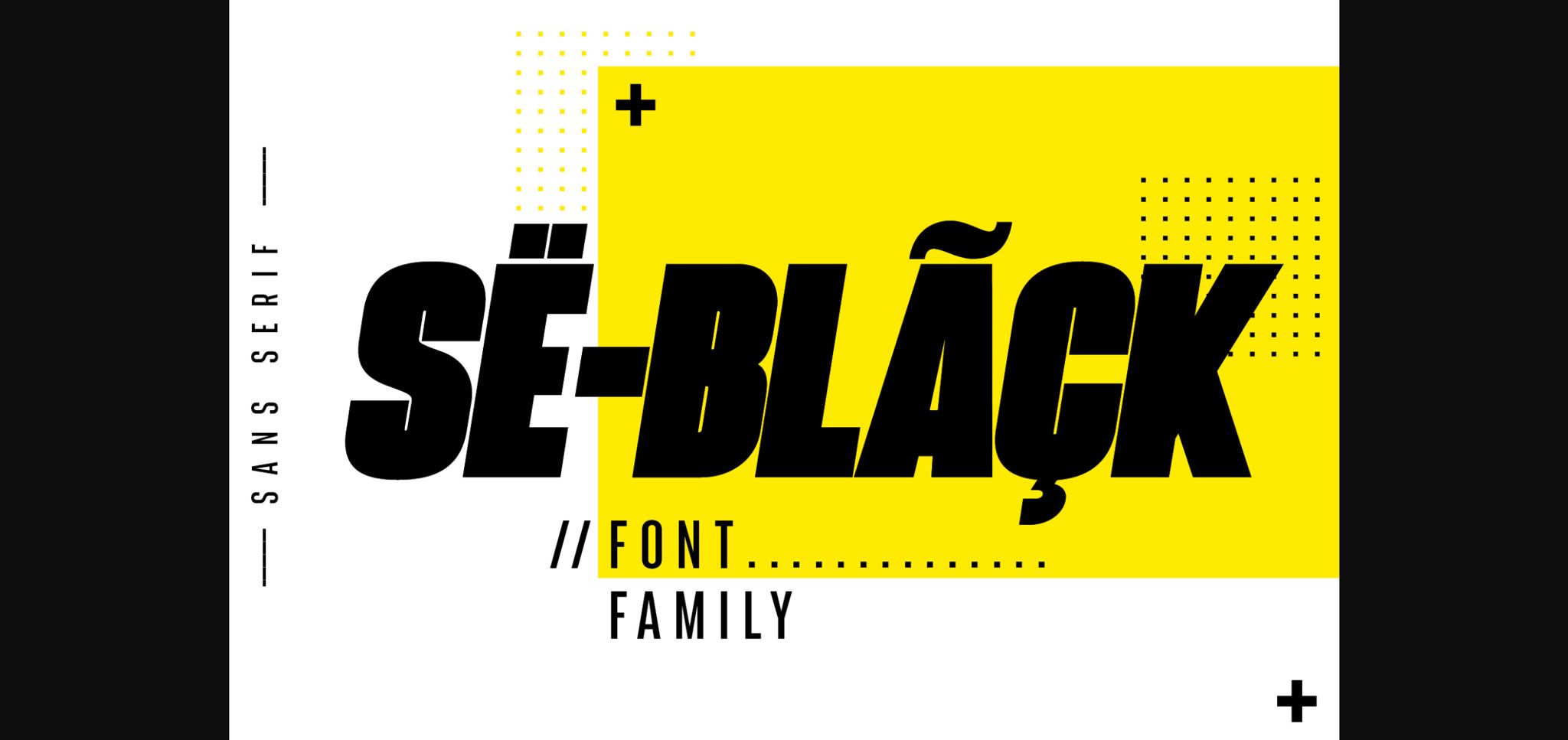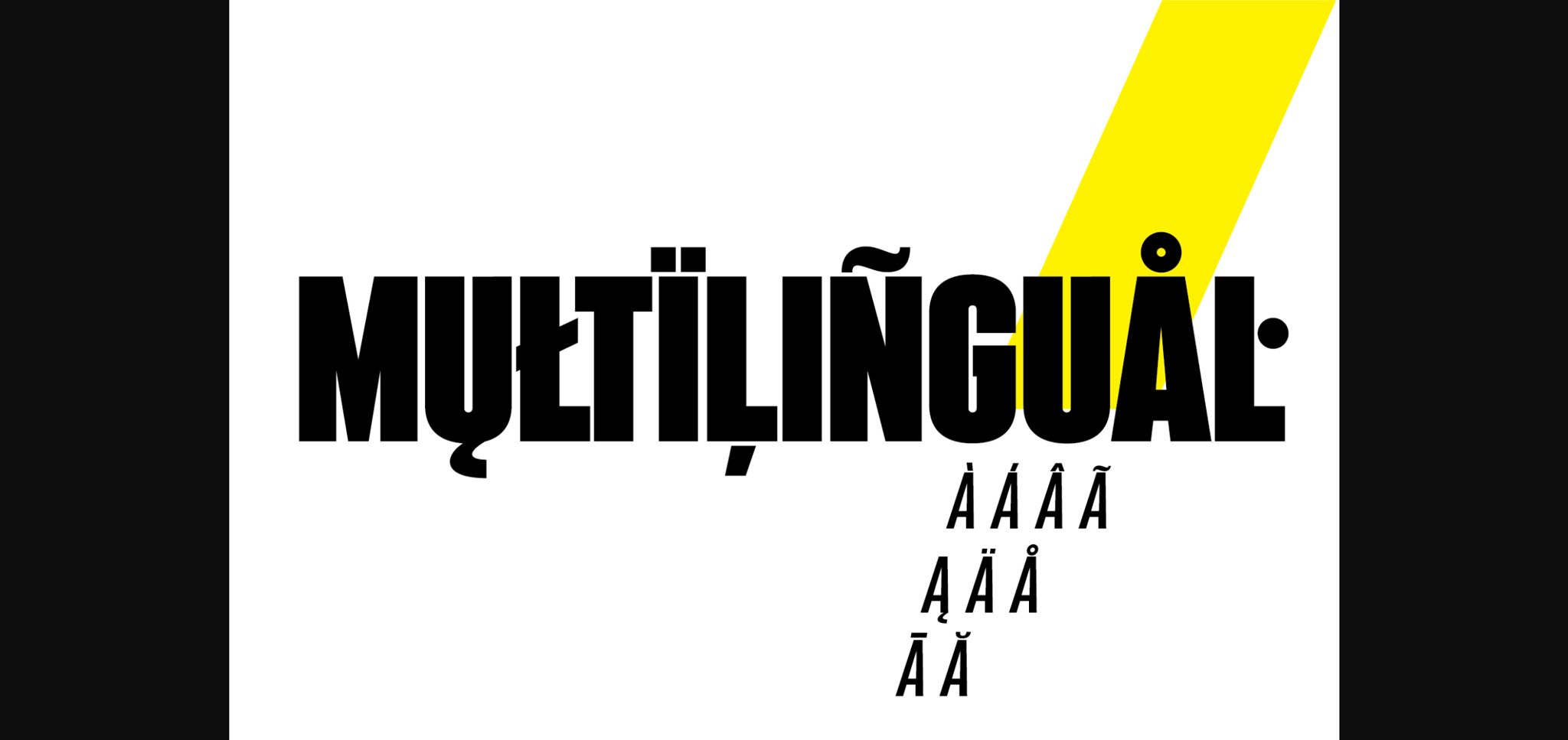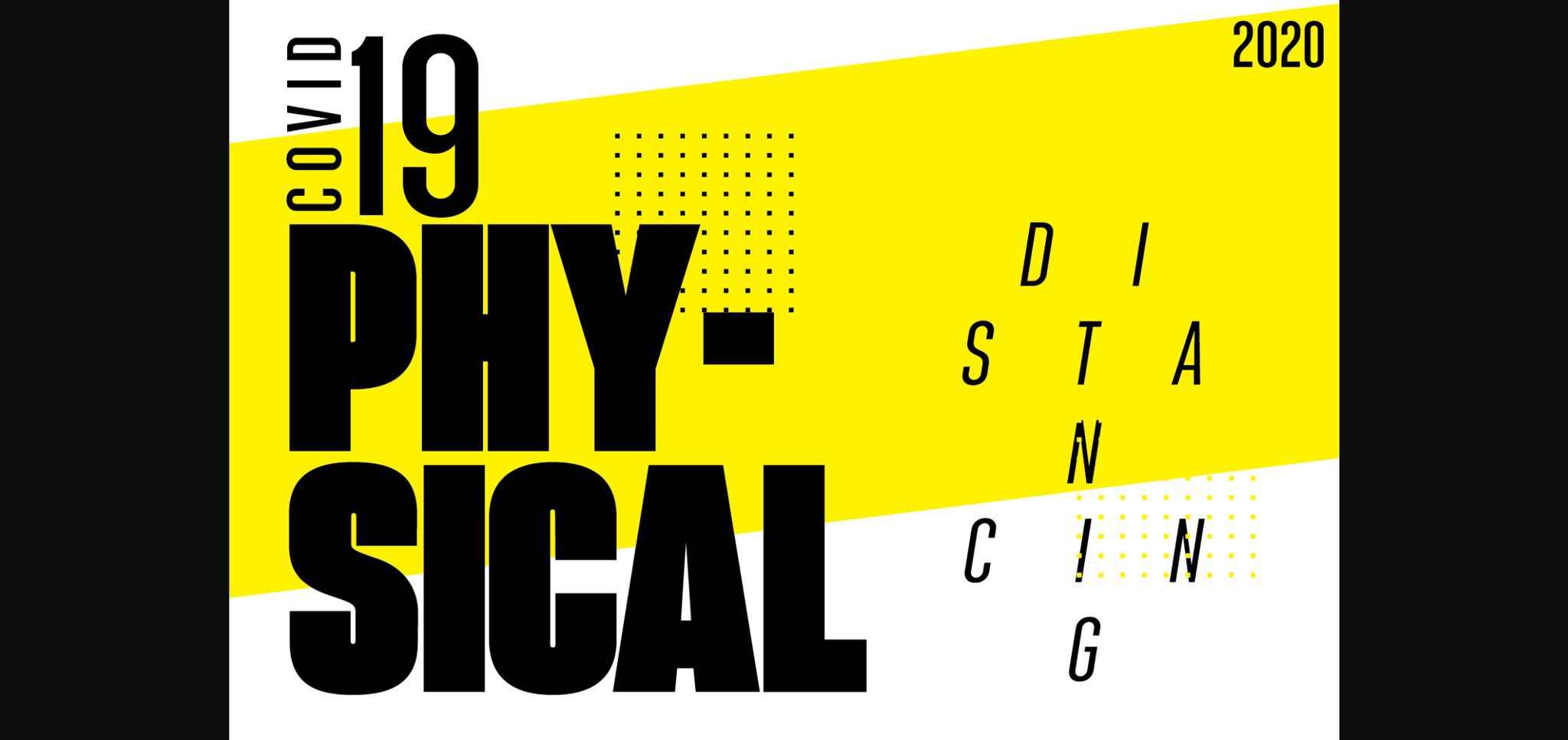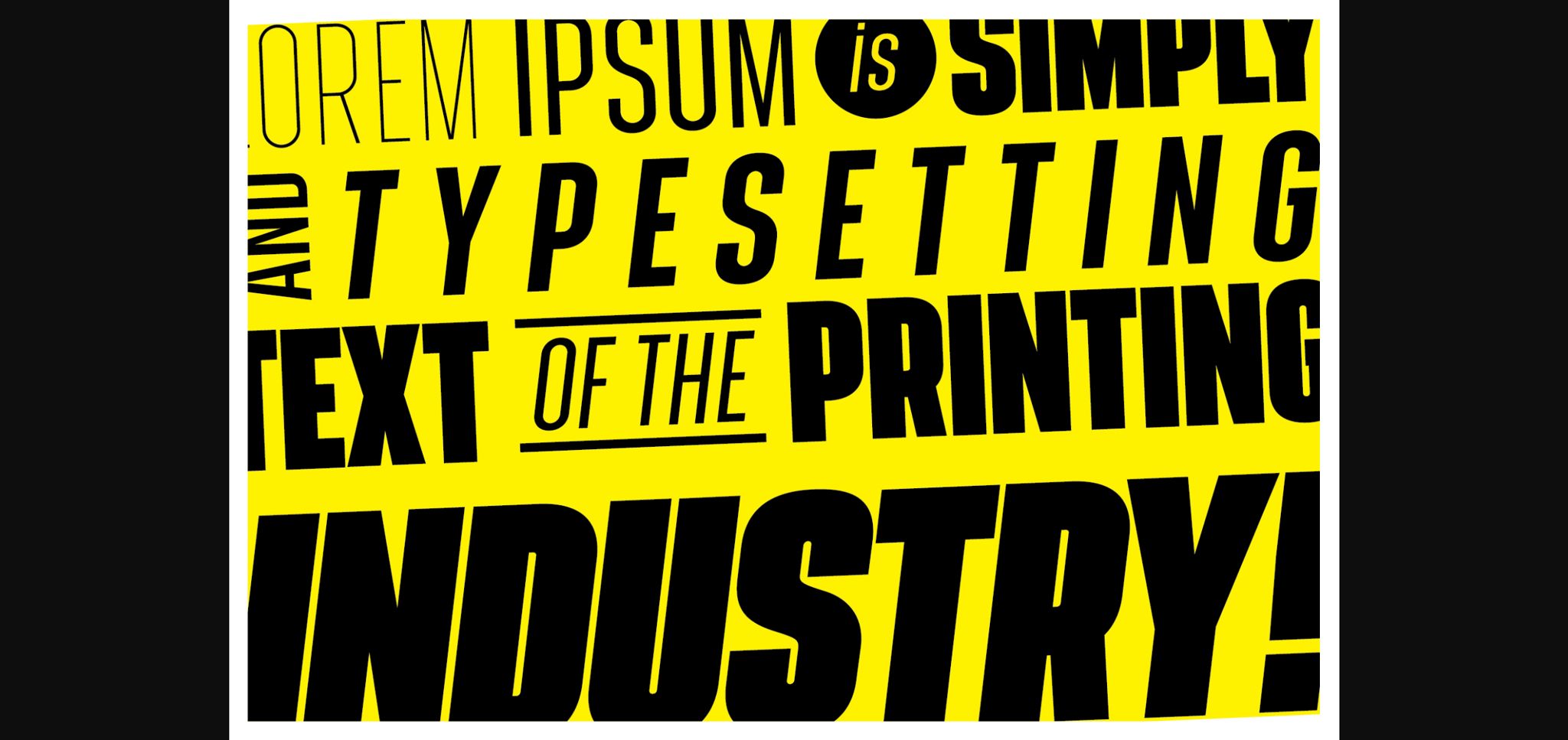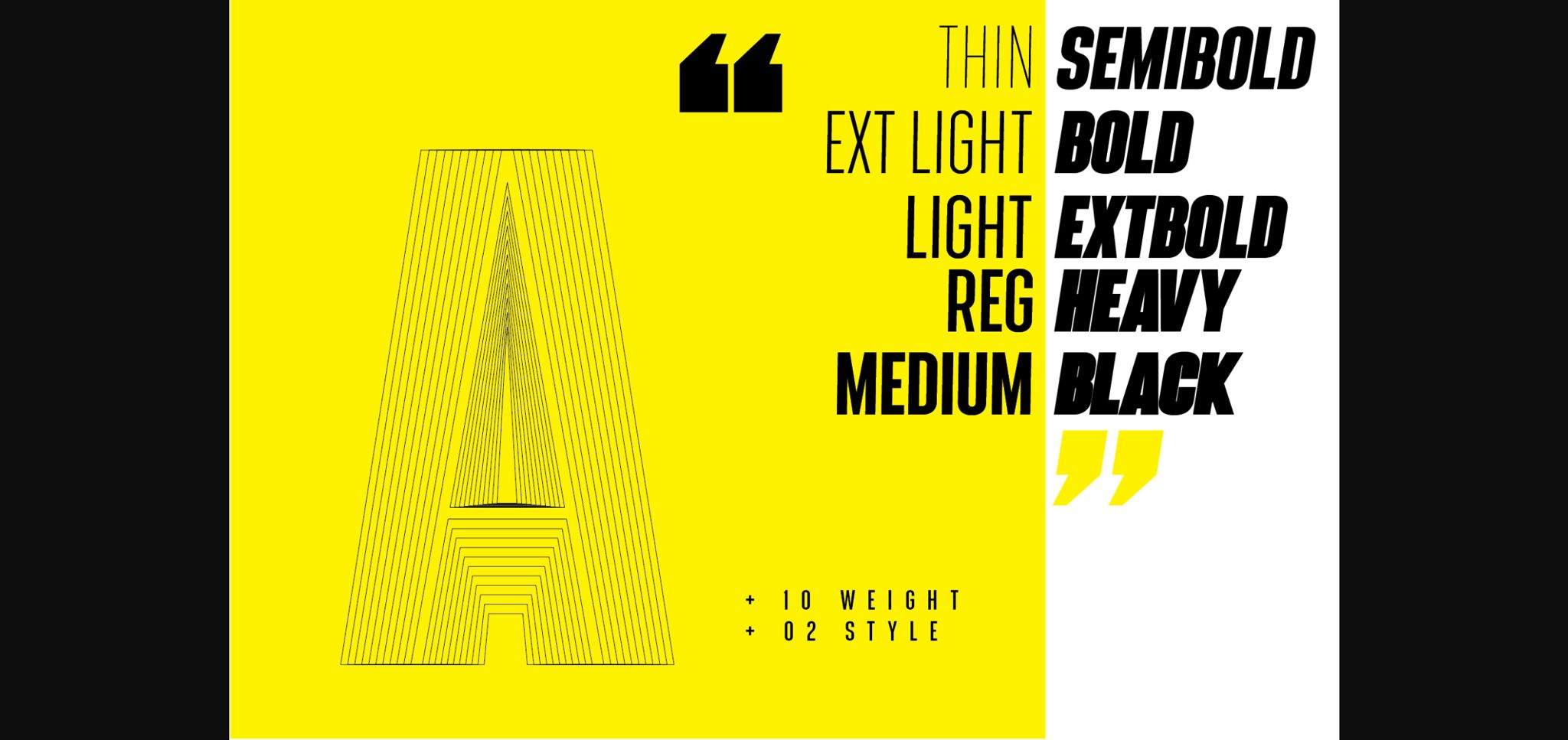
About SeBlack Font
SeBlack is a bold sans serif font, carefully handcrafted to become a true favorite. Its casual charm makes it appear wonderfully down-to-earth, readable and, ultimately, incredibly versatile. SeBlack will look outstanding in any context, whether itβs being used on busy backgrounds or as a standalone headline!